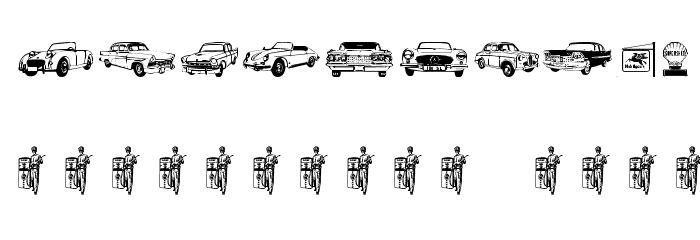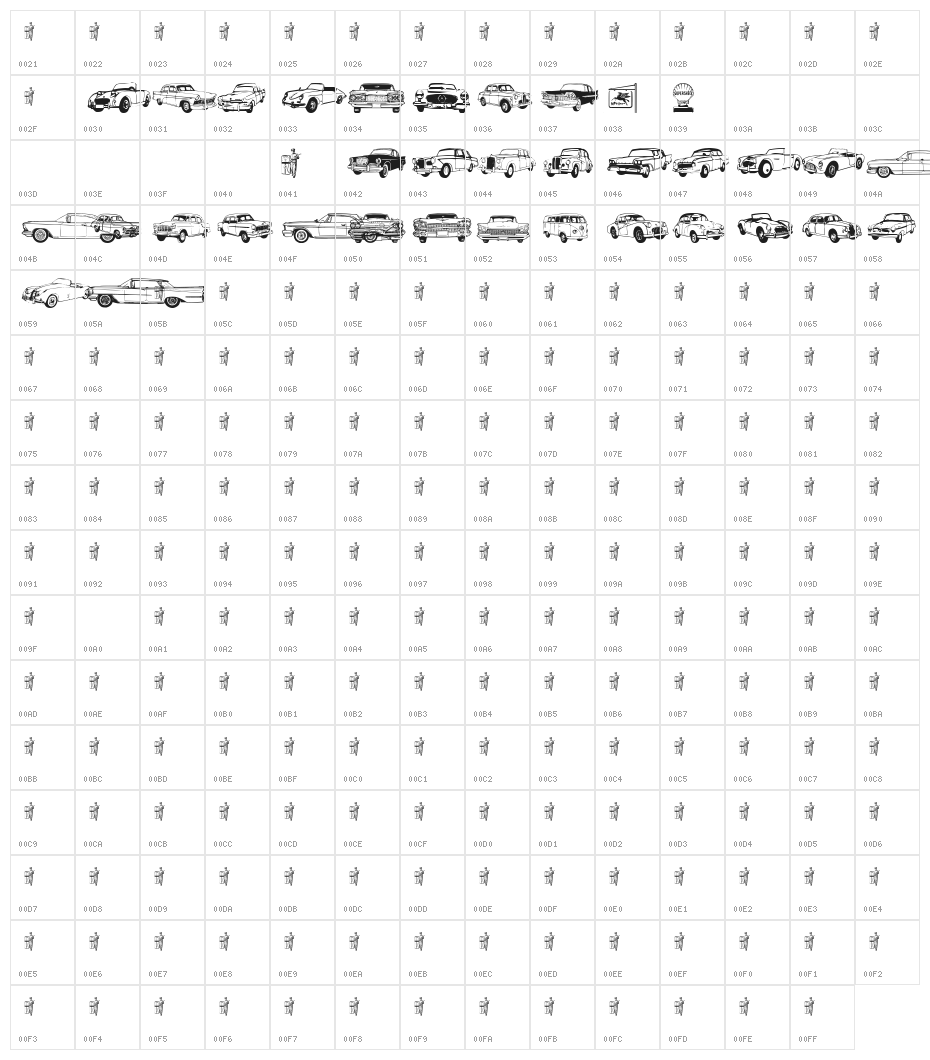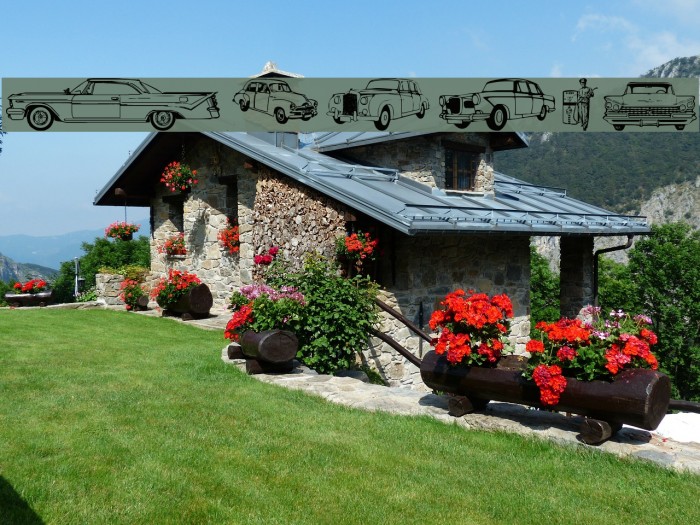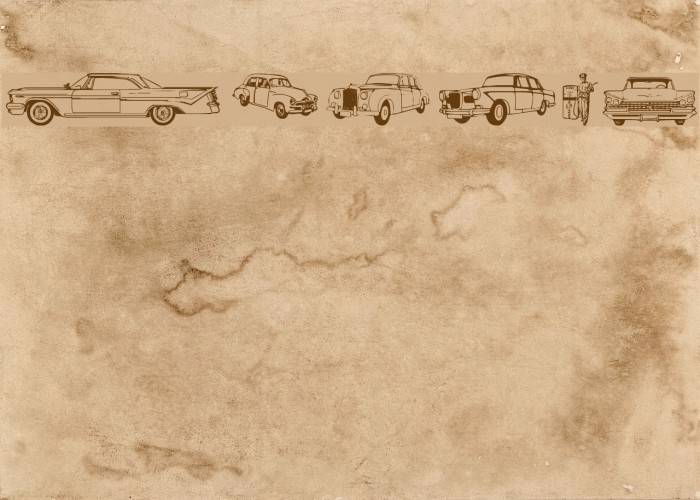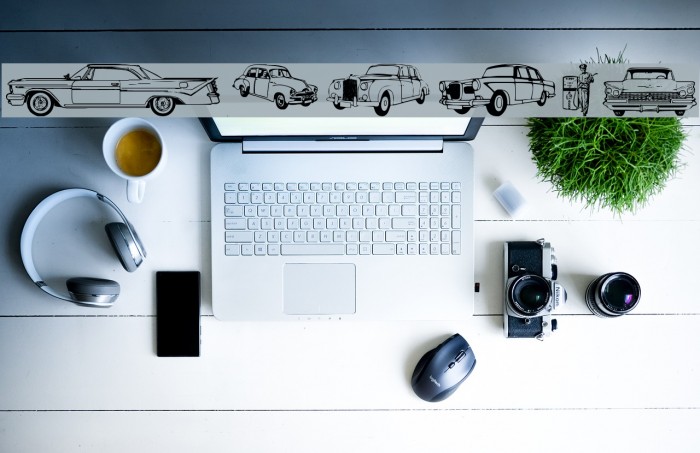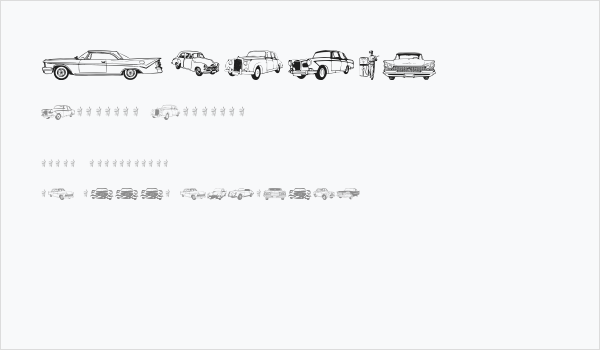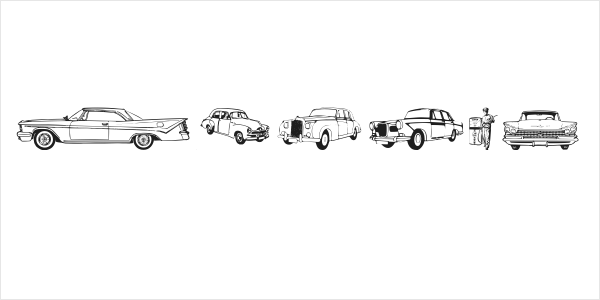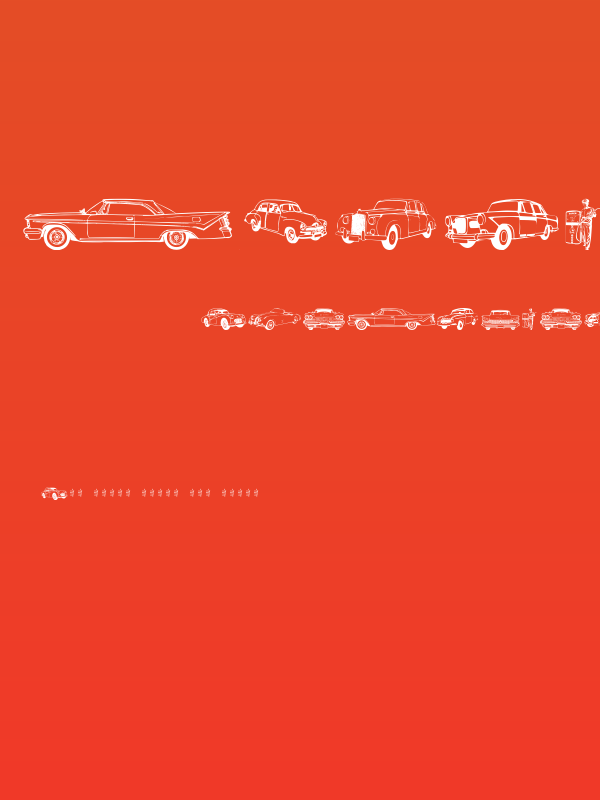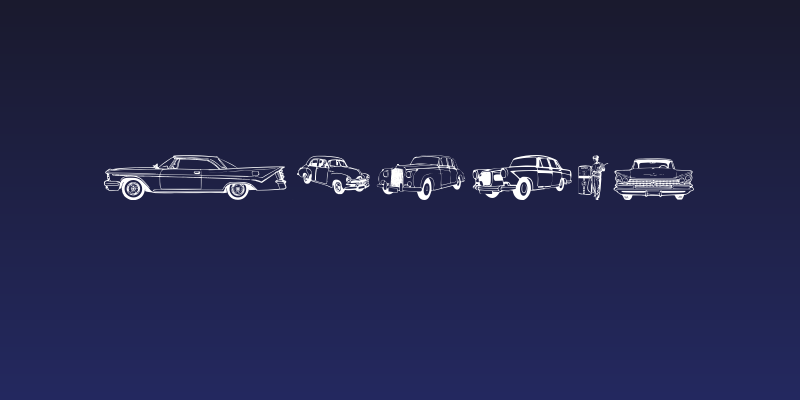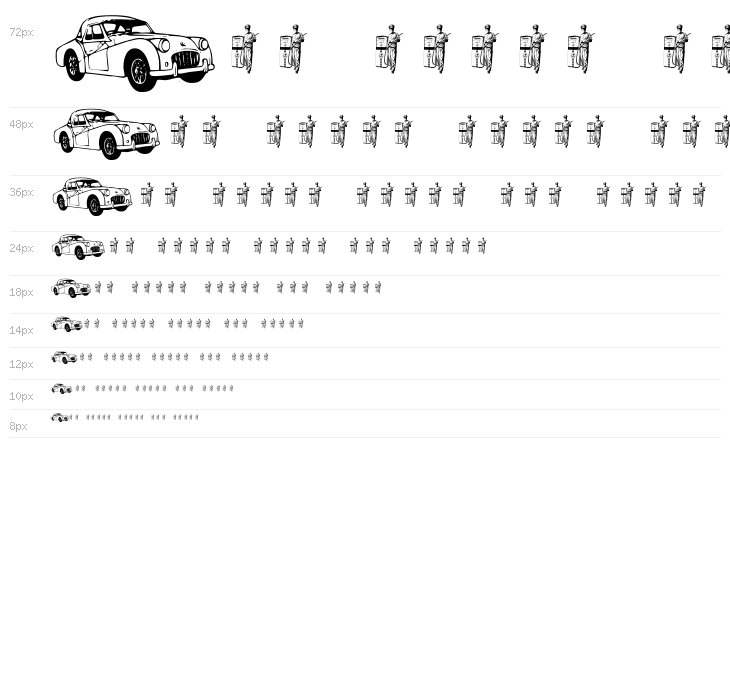
OLDCAR Font
OLDCAR Description
A decorative display font featuring detailed illustrations of vintage cars, motorcycles, and related automotive elements in place of traditional alphanumeric characters. Each character is represented by a unique vehicle or automotive-themed icon, rendered in a hand-drawn, black-and-white style.
| Overall Style | Vintage, Decorative |
| Use Case | Logos, Posters, Themed Headlines, Event Materials |
| Proposed Projects | Ideal for retro posters, car show flyers, automotive branding, themed invitations, and novelty signage. |